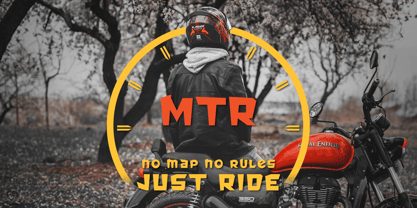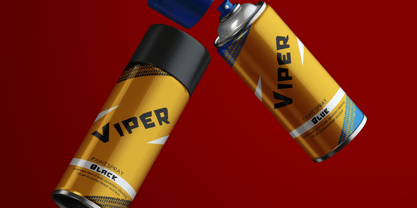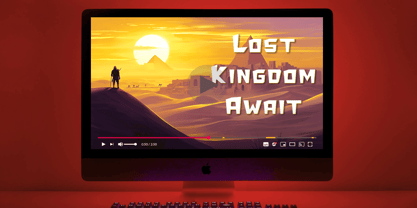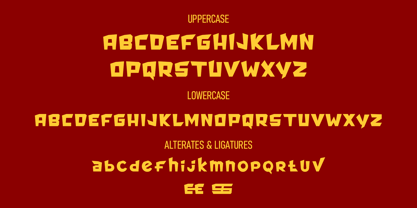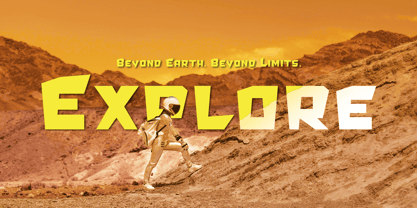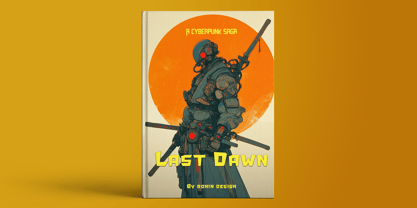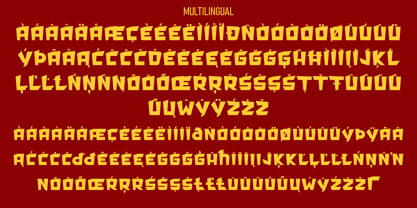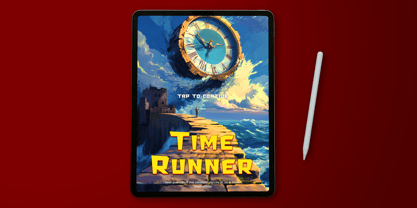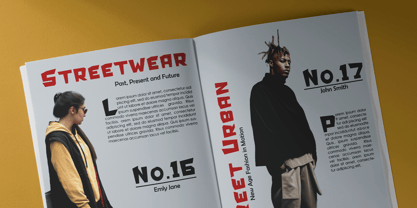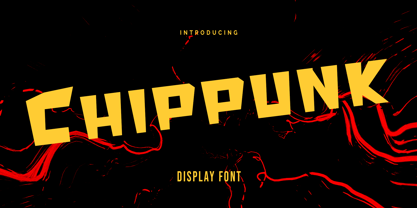
Chippunk
by Ronin Design
The Chippunk Font Family was designed by RoninDesign and published by Ronin Design. Chippunk contains 1 styles. More about this family
Chippunk features a bold, sharp, and aggressive style, with letterforms that are intersecting and angular, creating a dynamic, futuristic impression with a touch of rebellion or action. The characters appear as if they were sliced with a blade or formed from pieces of metal, making it suitable for designs with gaming, robotics, action comics, heavy metal music, or action movie posters themes. This style is highly attention-grabbing and conveys a strong and daring impression, making it most effective for titles, logos, or headlines that aim to stand out and radiate energy.
Features :
• All caps
• Various alternates and ligatures
• Ton of glyphs
• Multilingual accent